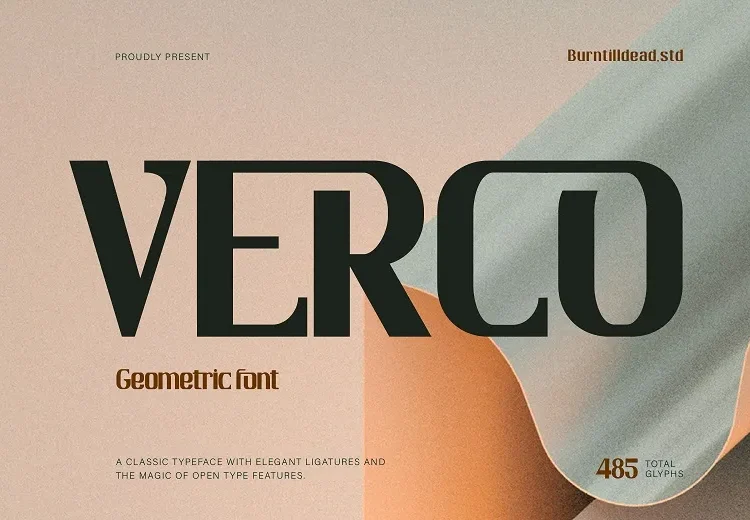
Verco Font
Verco is a cutting-edge modern geometric display font characterized by its simple, tidy forms and clean lines. Inspired by fundamental shapes such as squares, triangles, and circles, Verco font offers a beautiful and unique aesthetic that imparts a distinctly modern look to any design. This makes it particularly well-suited for tech, design, and branding projects where clarity and sophistication are essential.
The simplicity of Verco font allows it to shine as a powerful typographic tool. If you’re aiming to create a strong impact or achieve a polished and refined appearance, this font is an excellent choice. Its contemporary edge adds a dynamic quality to your designs, ensuring they stand out in today’s fast-paced visual landscape.
Whether you’re working on promotional materials, websites, or any project requiring a sleek and modern touch, Verco font delivers the versatility and style needed to elevate your work. Its geometric structure lends itself well to both digital and print applications, making it a valuable addition to any designer’s toolkit.